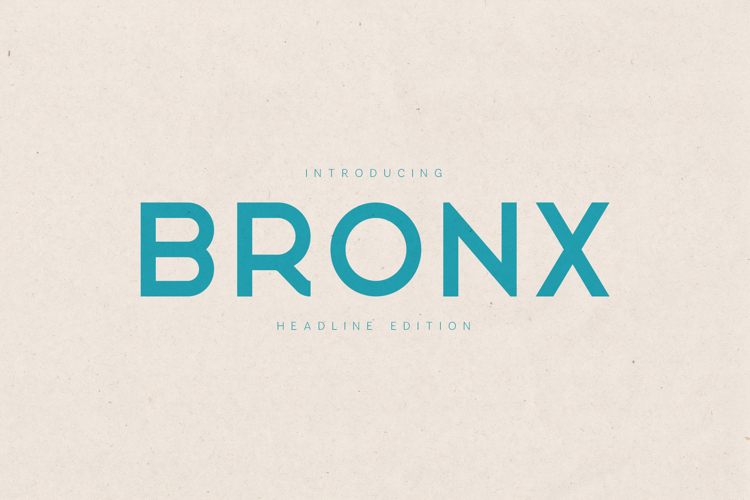
Bronx Headline Modern Bold Sans Serif Font
Bronx Headline is a bold, modern sans serif font designed for powerful headlines, strong branding, and contemporary typography. With clean geometric forms and confident letter shapes, this font delivers clarity, impact, and versatility across both print and digital projects.
Perfectly suited for headlines, posters, logos, editorial layouts, packaging, and modern brand identities, Bronx Headline works exceptionally well in fashion, lifestyle, corporate, and creative industries. Its straightforward design ensures excellent readability while maintaining a modern, professional aesthetic.
Ideal For- Headlines & posters
- Branding & logo design
- Editorial & magazine layouts
- Marketing & advertising
- Fashion & lifestyle projects
- Modern print & digital design
- Uppercase characters
- Numbers & punctuation
- Symbols
- Multilingual support